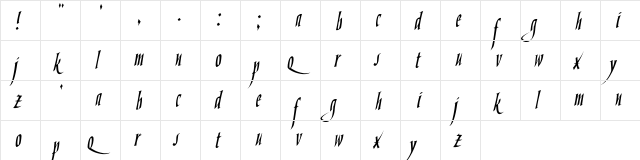
Handskript Regular Font Preview
Handskript Regular
Design Context for Handskript Typeface
Handskript brings a calligraphic fluidity to the page — its connecting strokes and expressive curves give it an unmistakably human quality.
Font Pairing: Combine Handskript with a simple geometric sans for maximum contrast — the tension between flowing curves and clean structure is a classic typographic pairing.
Pro Tip: Use Handskript for short runs of text — names, titles, or taglines. Extended body copy in script faces tires the eye quickly.